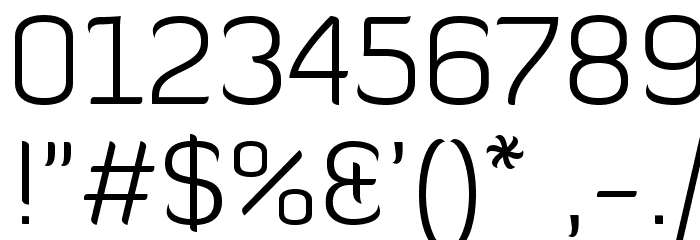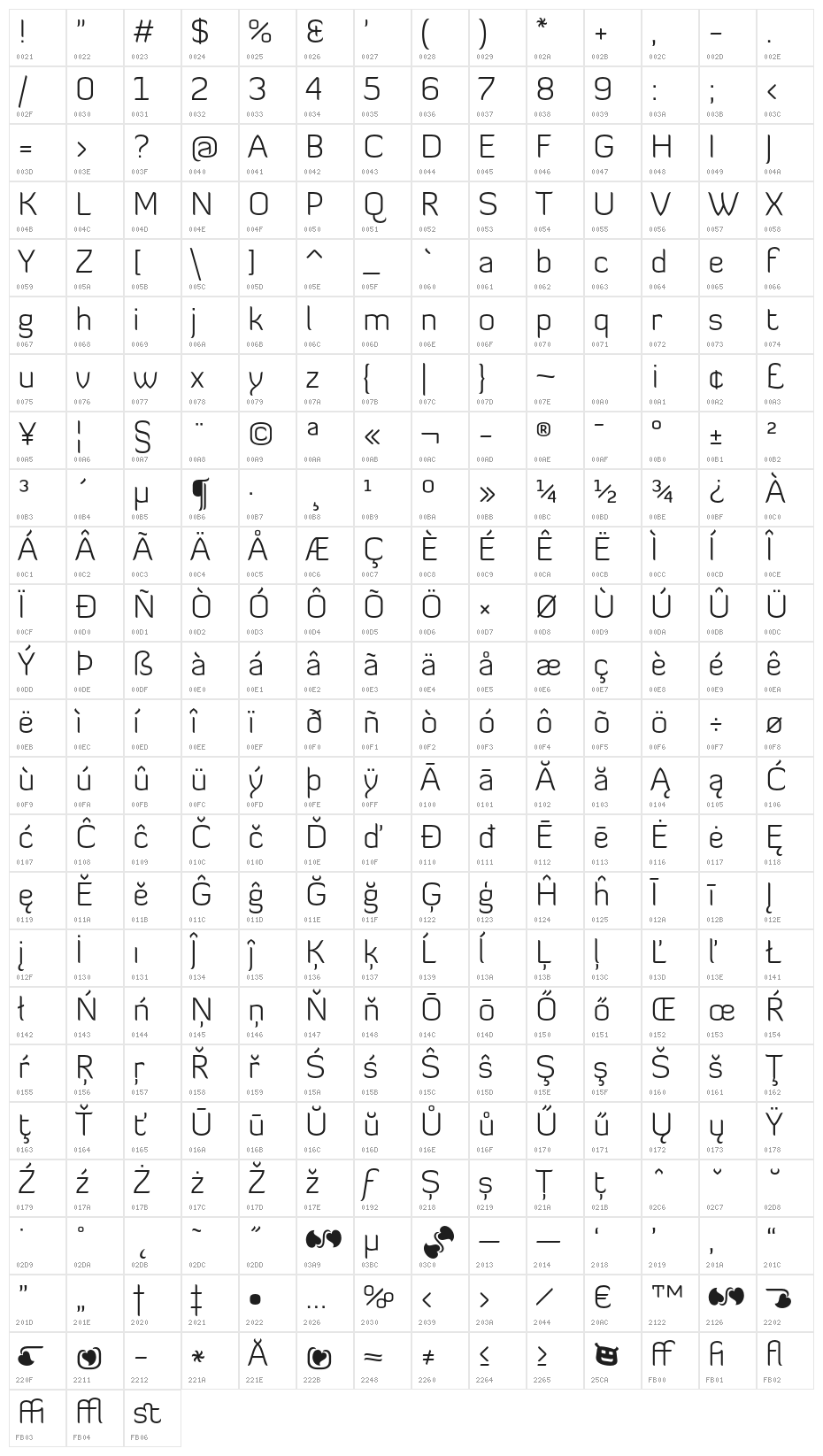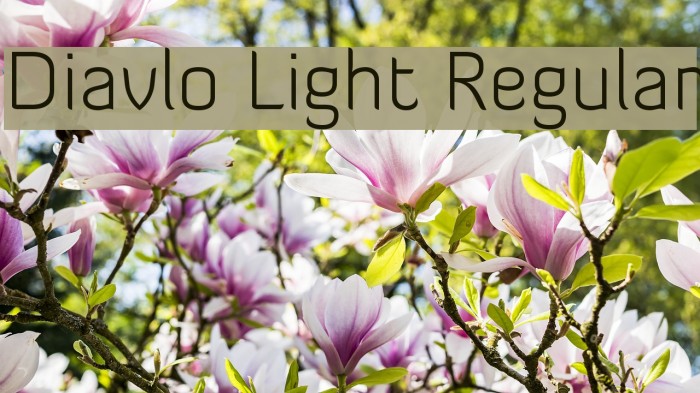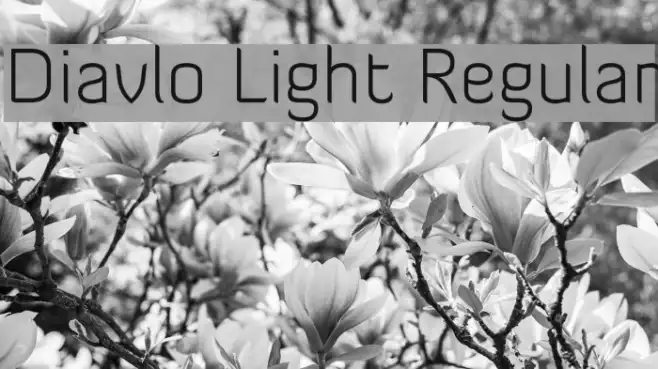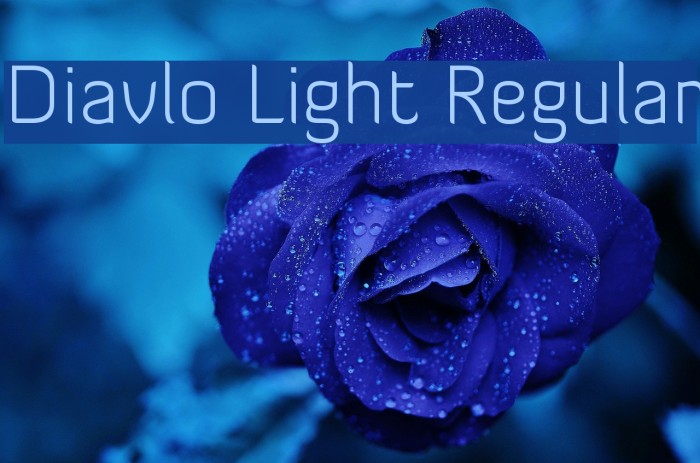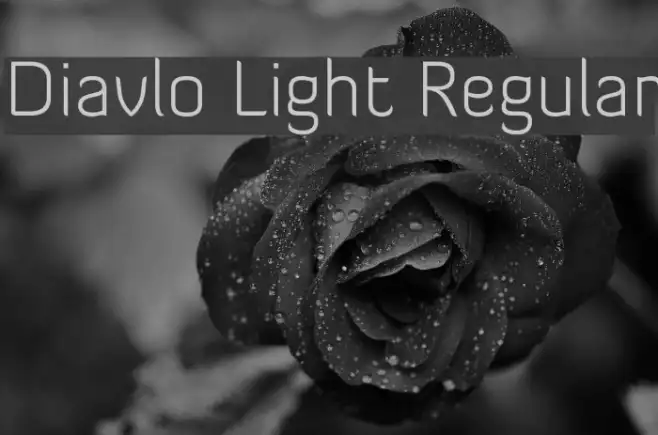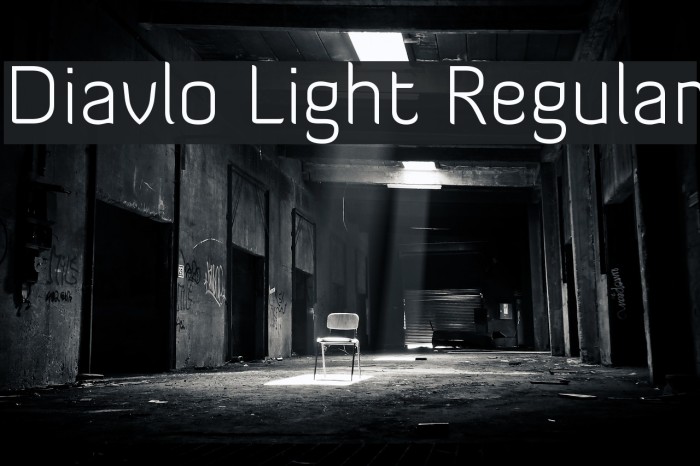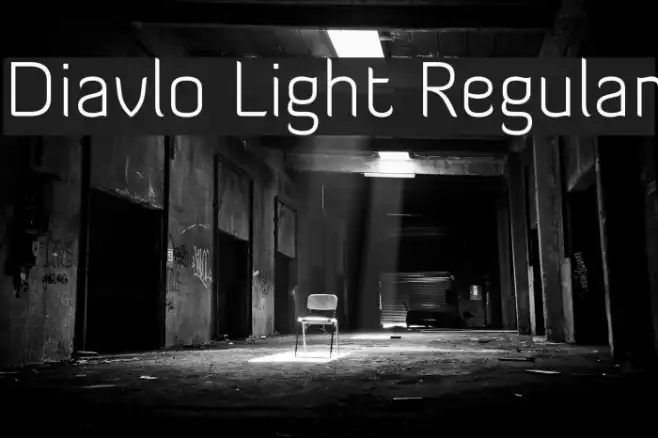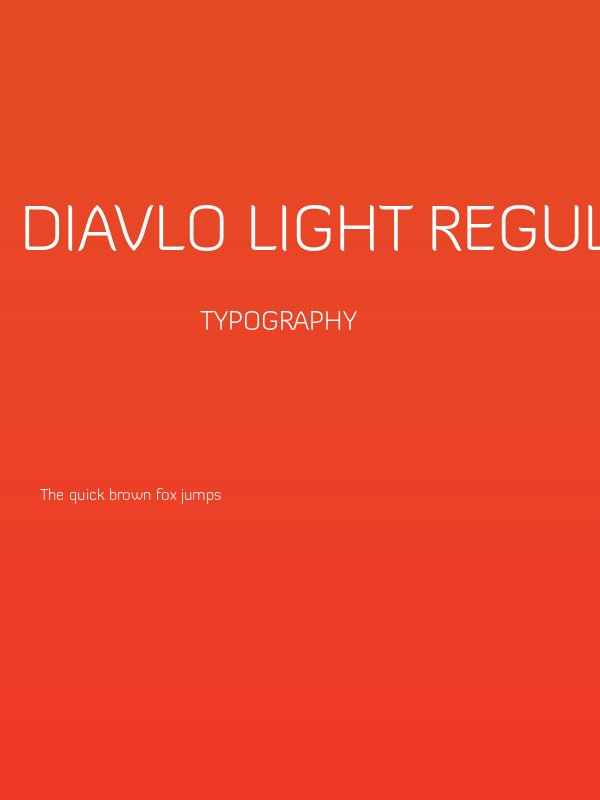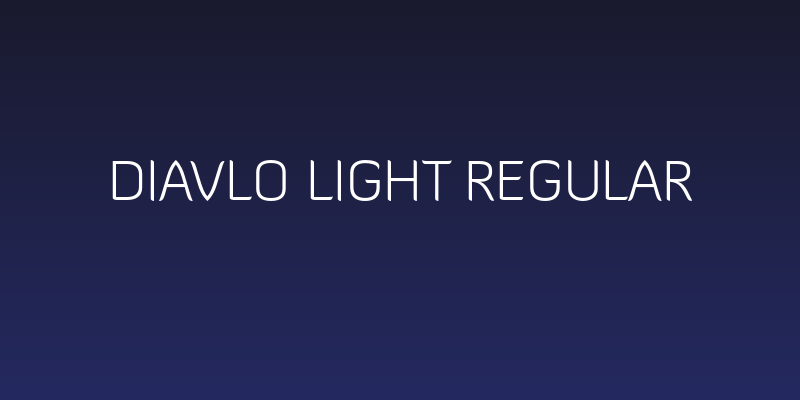
Diavlo Light Regular Font
Diavlo Light Regular Description
This font presents a clean and modern aesthetic with a geometric sans-serif style. The characters are well-balanced, featuring rounded edges that contribute to its approachable and friendly appearance. The uppercase letters are uniform in height, while the lowercase letters maintain a consistent x-height, enhancing readability. The numerals are clear and distinct, ensuring legibility in various contexts. Special characters are thoughtfully designed, maintaining the overall harmony of the typeface. Its simplicity and clarity make it versatile for a wide range of applications, from digital interfaces to print media.
| Proposed Projects | Ideal for web design, corporate branding, user interfaces, and print materials. |